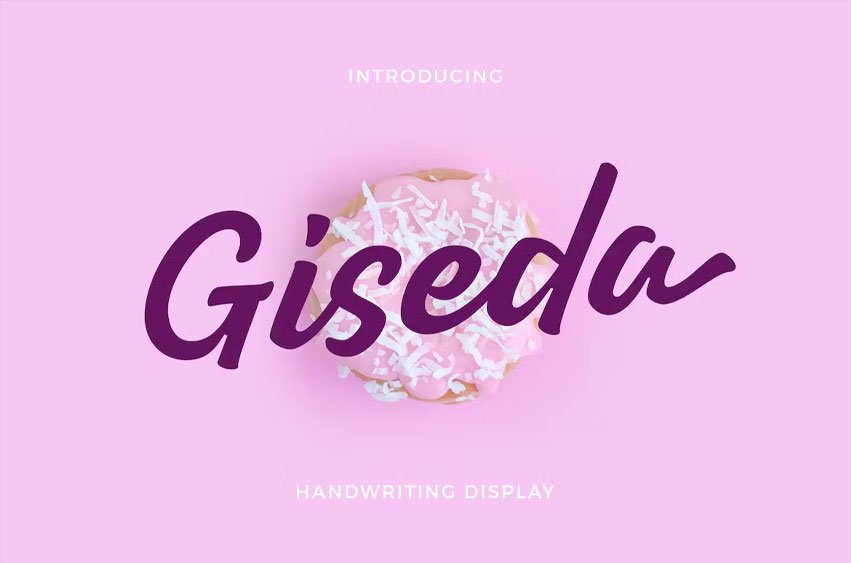
Giseda Font is a handwriting display typeface with authentic characters that give the impression of elegance and modern. Ideal for branding, editorial and signage. Giseda available in two format OpenType (OTF) and TryeType (TTF).